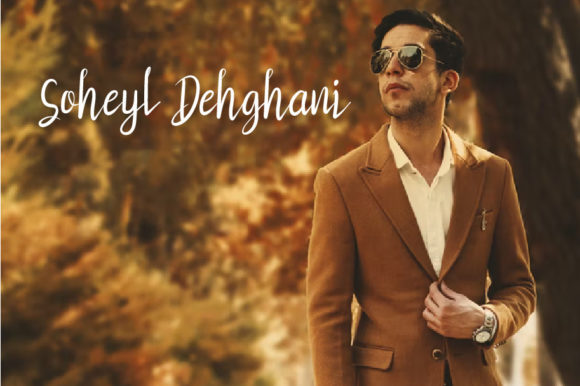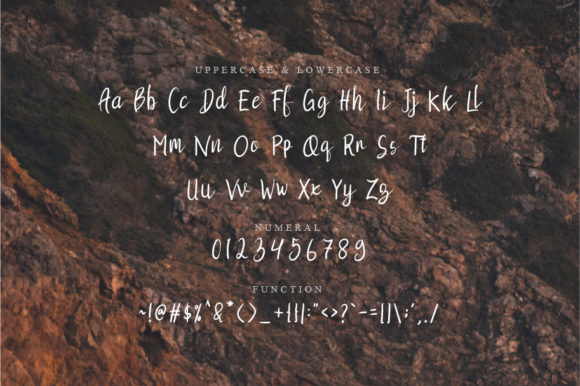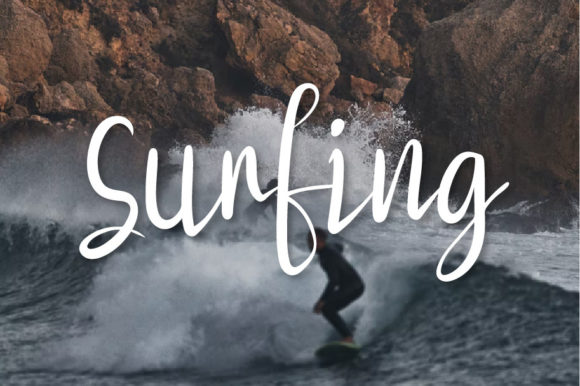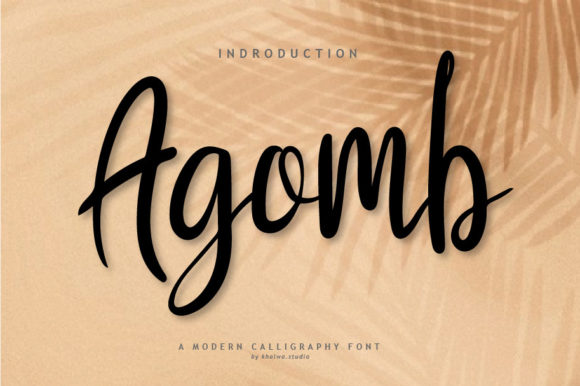
Discover the Charm of Agomb Font: Elevate Your Designs with a Lovely Handwritten Script
Are you on the hunt for a font that can add a touch of elegance and personality to your designs? Look no further than the Agomb Font! This beautiful handwritten script is perfect for creating eye-catching logos, branding materials, and quotes that will leave a lasting impression on your audience. In this article, we’ll dive into the world of Agomb Font and explore its unique features, benefits, and uses.
What is Agomb Font?
Agomb Script is a lovely and timeless handwritten font that is sure to capture the hearts of designers and crafters alike. Its unique and beautiful touch sets it apart from other fonts, making it the perfect choice for those who want to add a personal touch to their designs. Whether you’re creating a logo, branding materials, or social media graphics, Agomb Font is the perfect choice.
Key Features of Agomb Font
• Unique and Beautiful Touch: Every letter in Agomb Font has a unique and beautiful touch that will make your design come alive!
• Handwritten Script: Agomb Font is a handwritten script font that adds a personal touch to your designs.
• Elegant and Timeless: Agomb Font is a timeless font that will never go out of style.
• Perfect for Logos and Branding: Agomb Font is perfect for creating eye-catching logos and branding materials.
Benefits of Using Agomb Font
So, why should you choose Agomb Font for your designs? Here are just a few benefits of using this lovely handwritten script:
• Adds a Personal Touch: Agomb Font adds a personal touch to your designs, making them more relatable and engaging.
• Versatile: Agomb Font can be used for a variety of design projects, from logos and branding to social media graphics and quotes.
• Easy to Read: Despite its handwritten nature, Agomb Font is easy to read and understand, making it perfect for body text and titles.
• Unique: Agomb Font is a unique font that will set your designs apart from the crowd.
Uses of Agomb Font
Agomb Font is a versatile font that can be used for a variety of design projects. Here are just a few ideas to get you started:
• Logos and Branding: Agomb Font is perfect for creating eye-catching logos and branding materials.
• Social Media Graphics: Agomb Font can be used to create engaging social media graphics, from Facebook posts to Instagram stories.
• Quotes and Inspirational Messages: Agomb Font is perfect for creating inspirational quotes and messages.
• Packaging Design: Agomb Font can be used for packaging design, adding a personal touch to product labels and packaging.
Tips for Using Agomb Font
Here are a few tips for using Agomb Font in your designs:
• Use it Sparingly: Agomb Font is a bold font, so use it sparingly to avoid overwhelming your design.
• Pair it with Other Fonts: Agomb Font can be paired with other fonts to create a unique and interesting design.
• Experiment with Colors: Agomb Font looks great in a variety of colors, so experiment with different colors to find the one that works best for your design.
In conclusion, Agomb Font is a lovely and timeless handwritten font that is perfect for designers and crafters who want to add a personal touch to their designs. Its unique and beautiful touch sets it apart from other fonts, making it the perfect choice for creating eye-catching logos, branding materials, and quotes. With its versatility, elegance, and ease of use, Agomb Font is a must-have font for any designer or crafter.